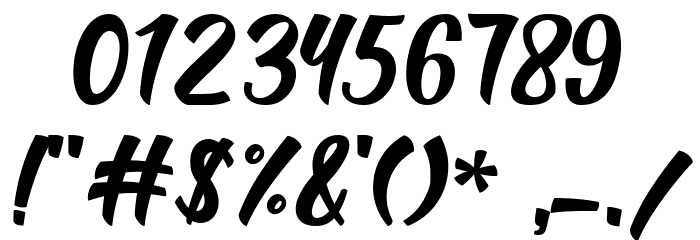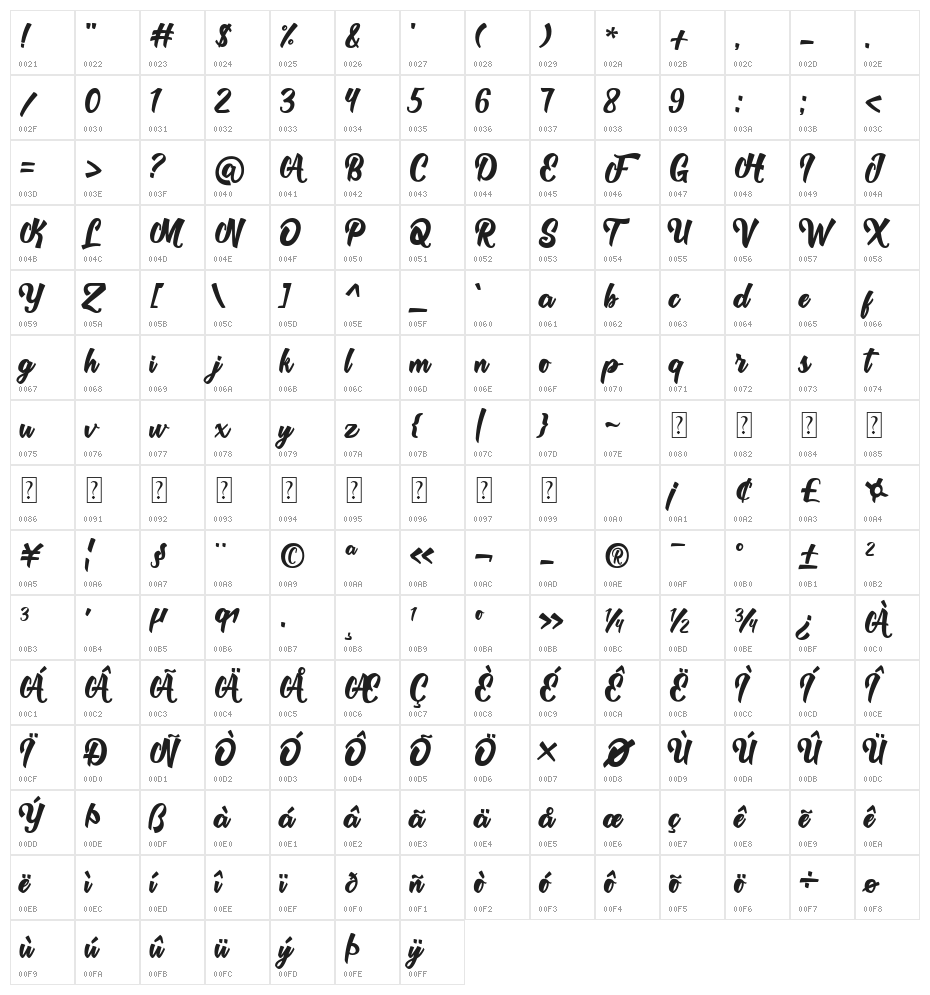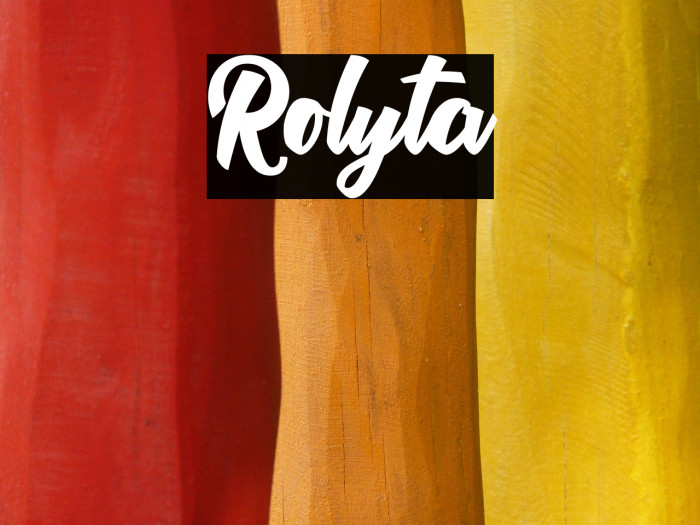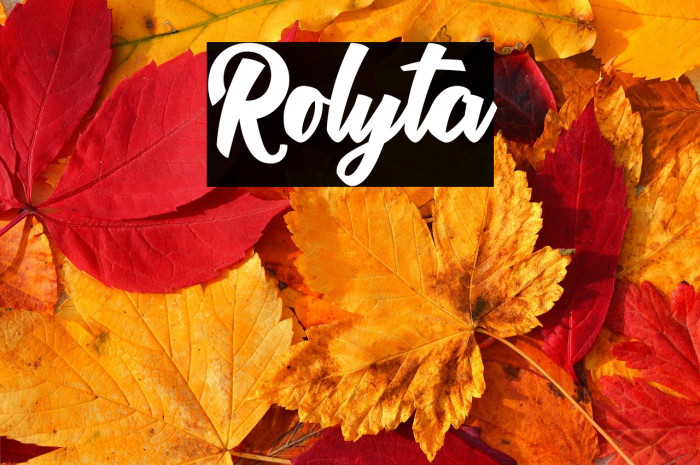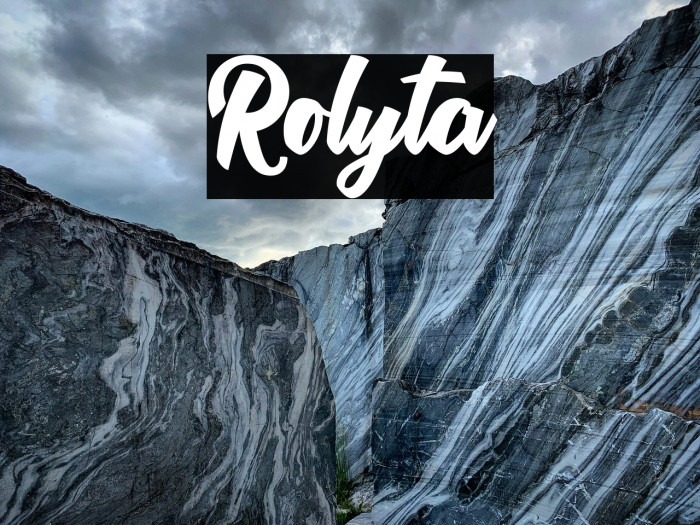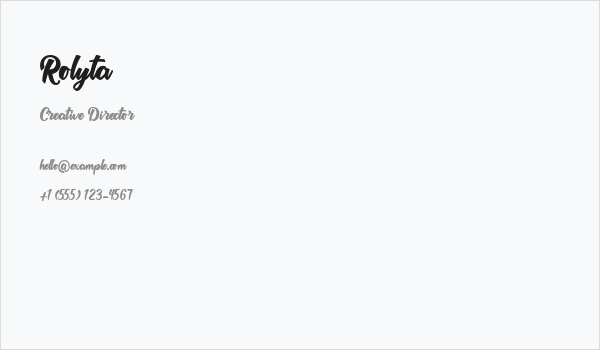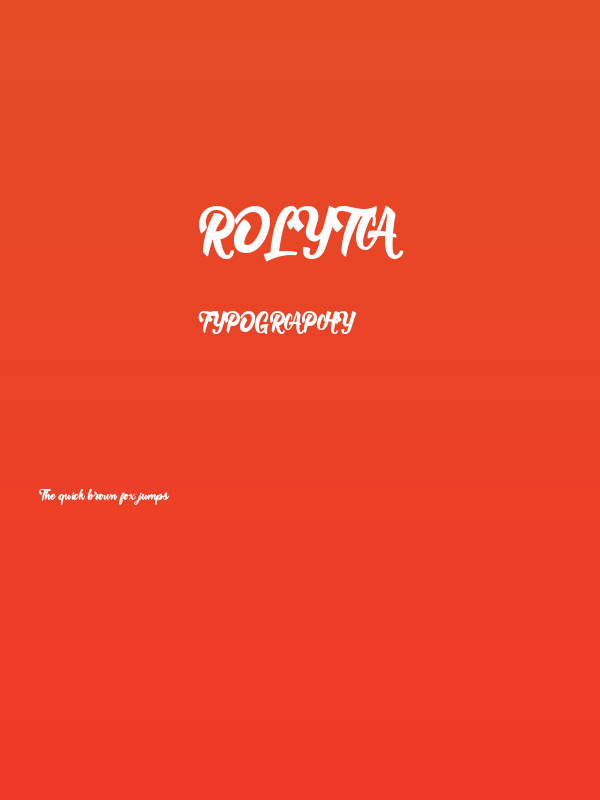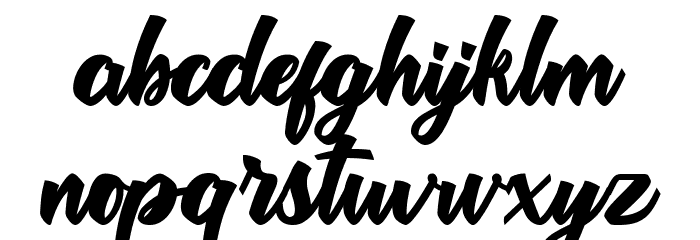
Rolyta Font
Rolyta Description
This font features a bold and expressive script style with a strong presence. The characters are connected with smooth, flowing strokes, giving it a handwritten appearance. The uppercase letters are slightly more upright, while the lowercase letters have a more pronounced slant, adding to the dynamic feel. The numbers and special characters maintain the same boldness and fluidity, ensuring consistency across all glyphs. This font is ideal for creating eye-catching designs that require a personal touch.